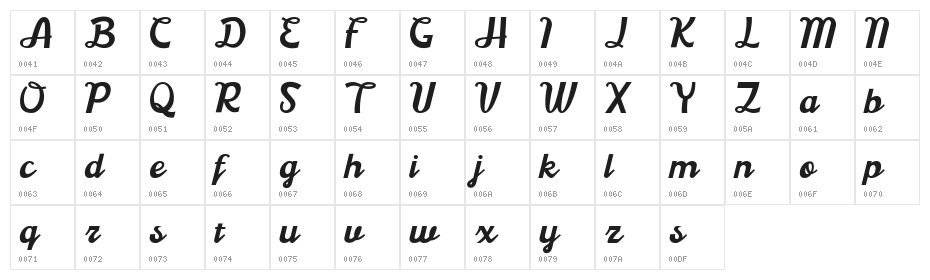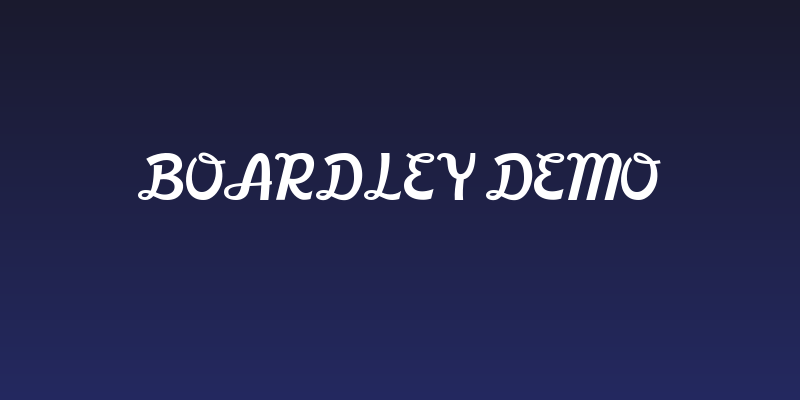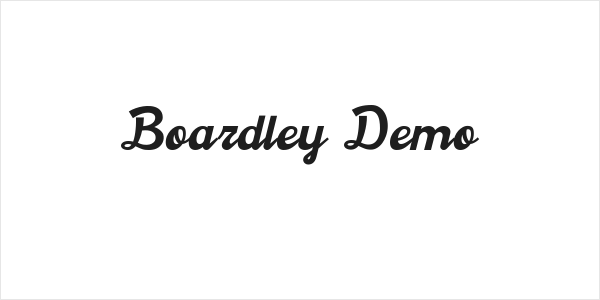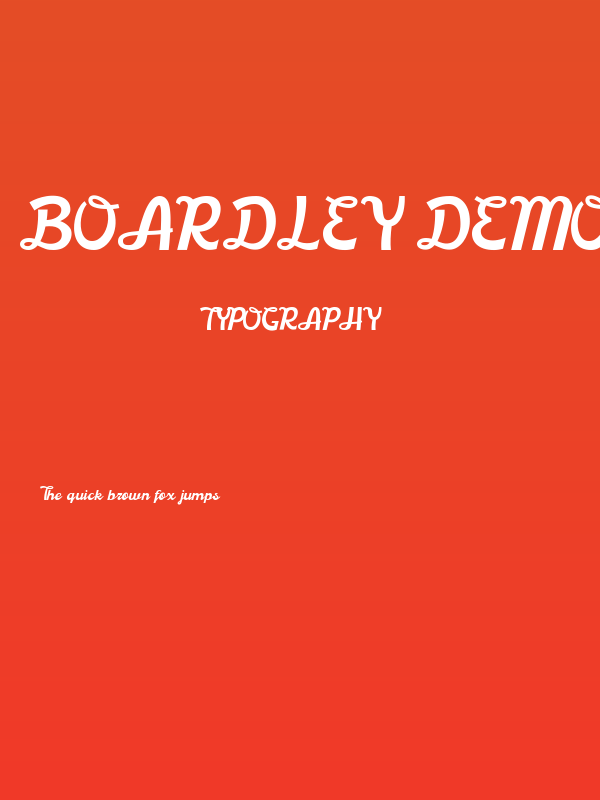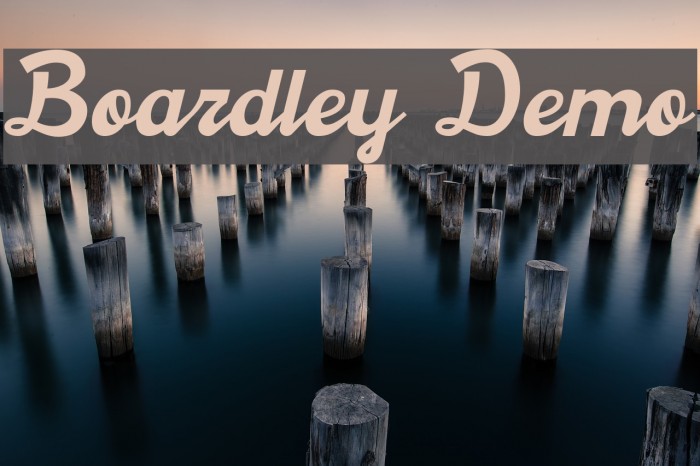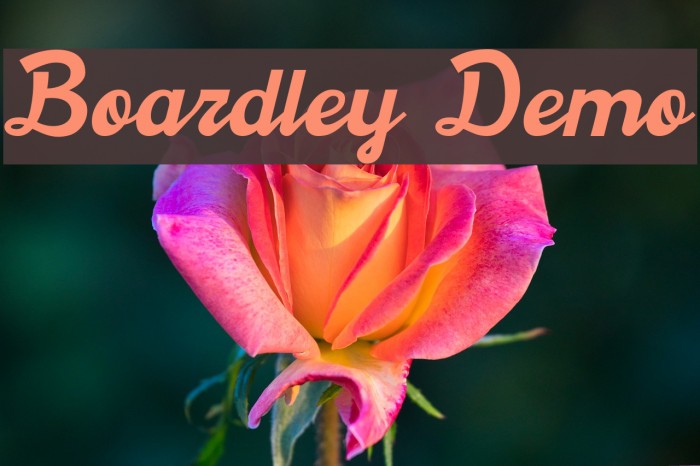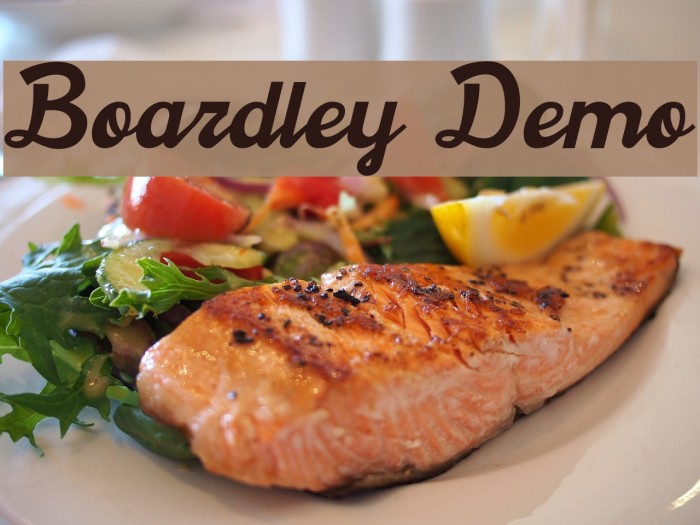
Boardley Demo Font
Boardley Demo Description
This font features a bold and flowing script style, characterized by its elegant curves and smooth transitions between letters. The uppercase letters exhibit a distinctive flair with extended strokes and loops, while the lowercase letters maintain a cohesive and harmonious appearance. The overall design is reminiscent of classic calligraphy, yet it retains a modern touch with its clean lines and balanced proportions. The font's unique style is both eye-catching and versatile, making it suitable for a variety of design applications.
| Proposed Projects | Ideal for wedding invitations, branding projects, logo design, and elegant packaging. |